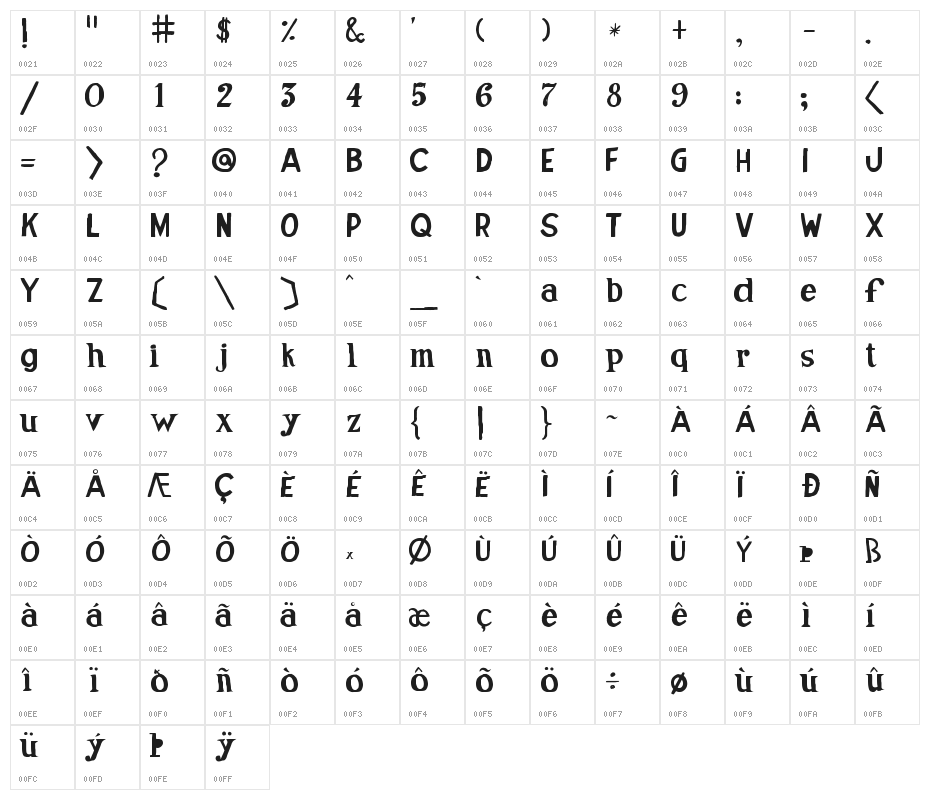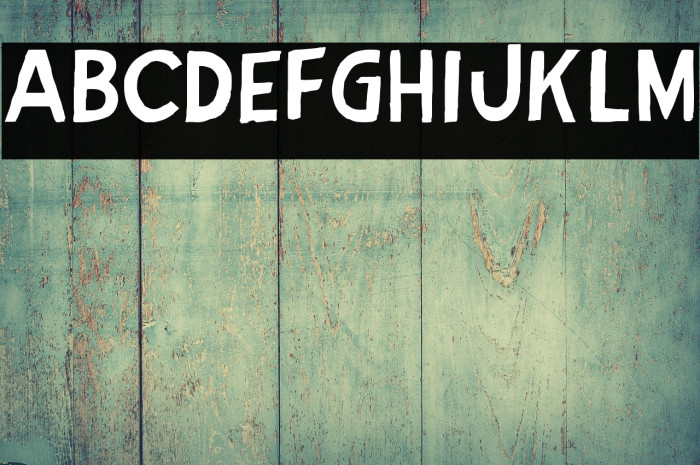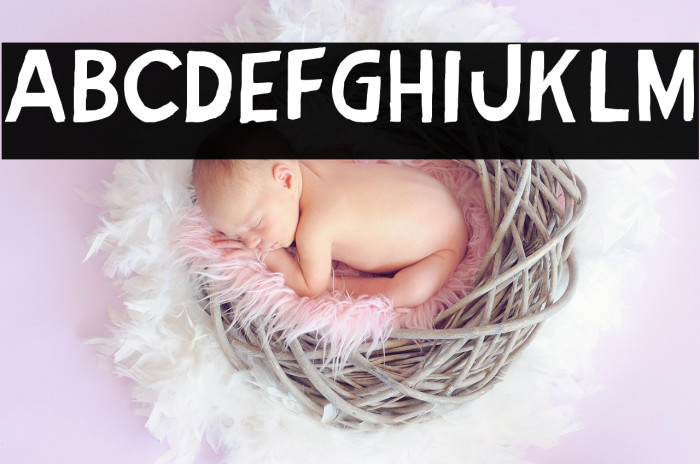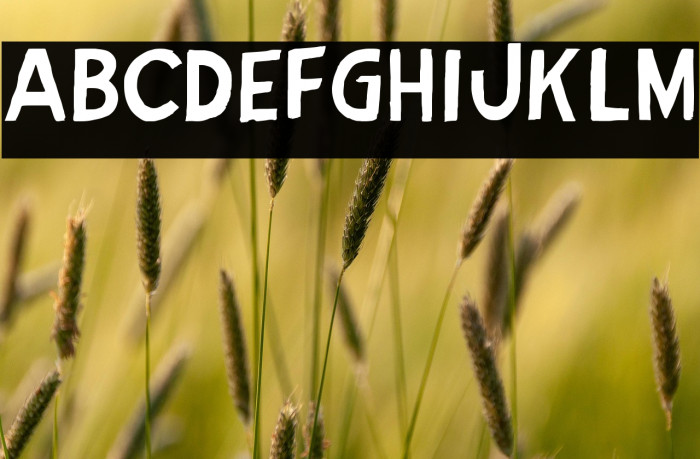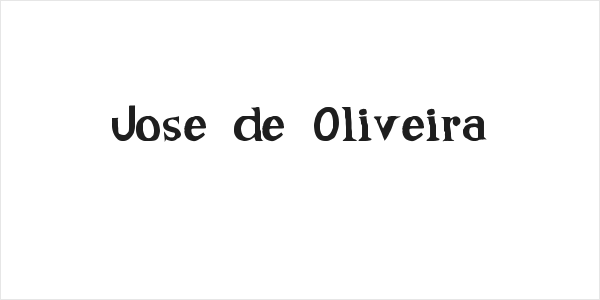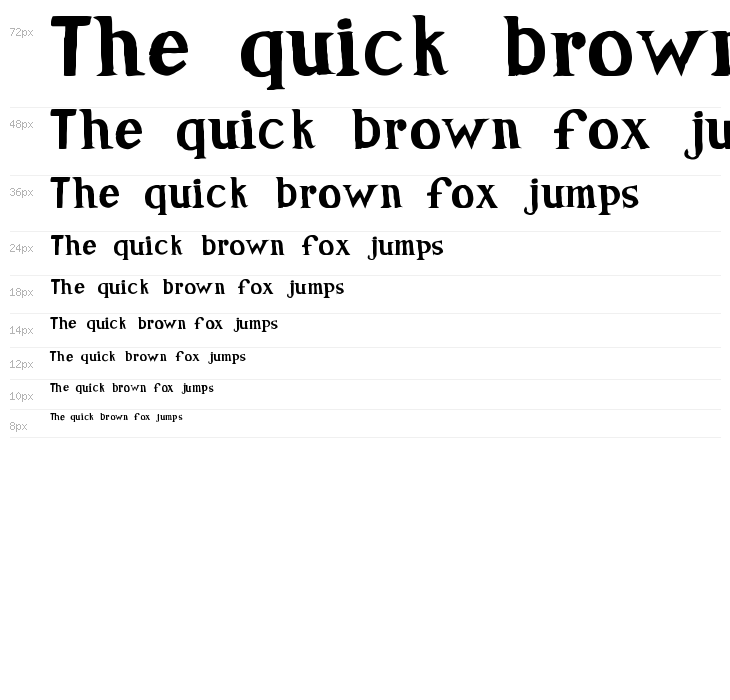
Jose de Oliveira Font
Jose de Oliveira Description
This font features a bold and expressive style with a hand-drawn appearance. The characters are slightly irregular, giving them a unique and artistic flair. The uppercase letters are robust and commanding, while the lowercase letters maintain a consistent flow with a touch of whimsy. The numerals are bold and easily readable, complementing the overall style. Special characters are creatively designed, adding to the font's playful and dynamic nature. This font is ideal for projects that require a personal and artistic touch, such as posters, invitations, or branding materials.
Proposed ProjectsIdeal for posters, invitations, branding materials, and artistic projects.